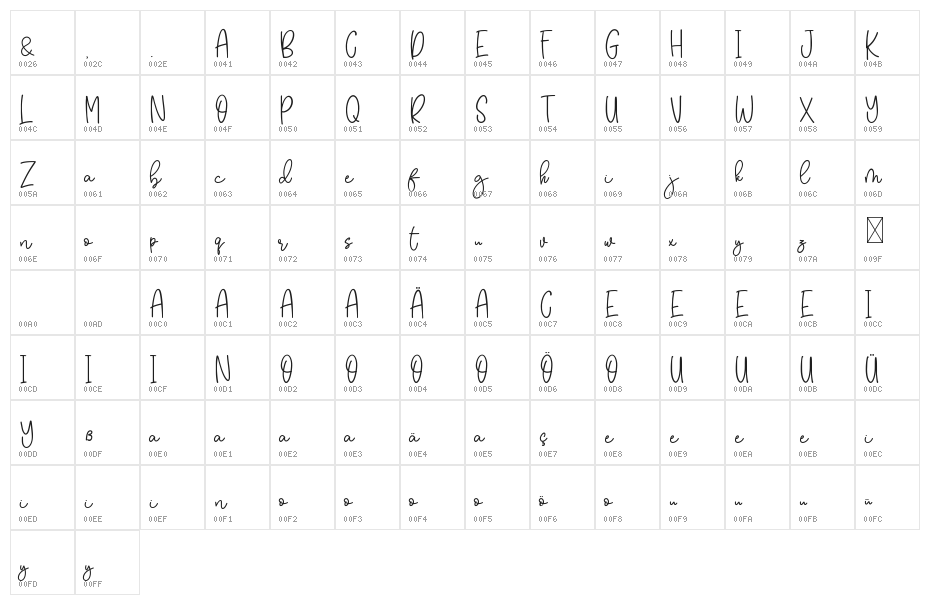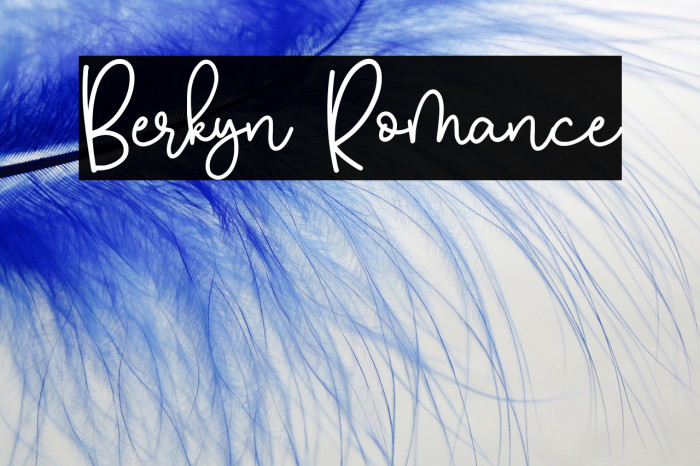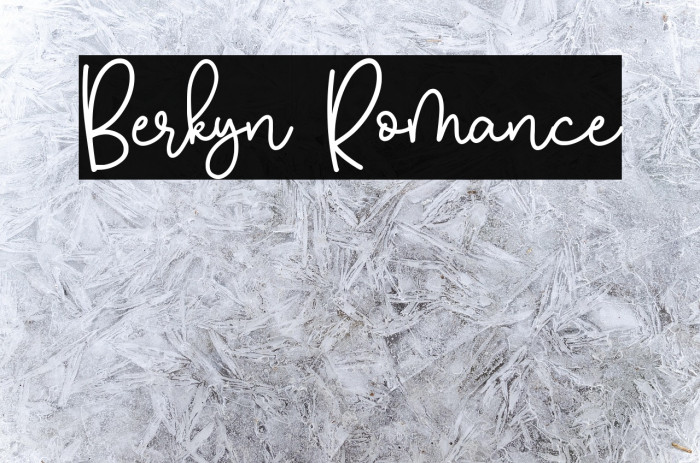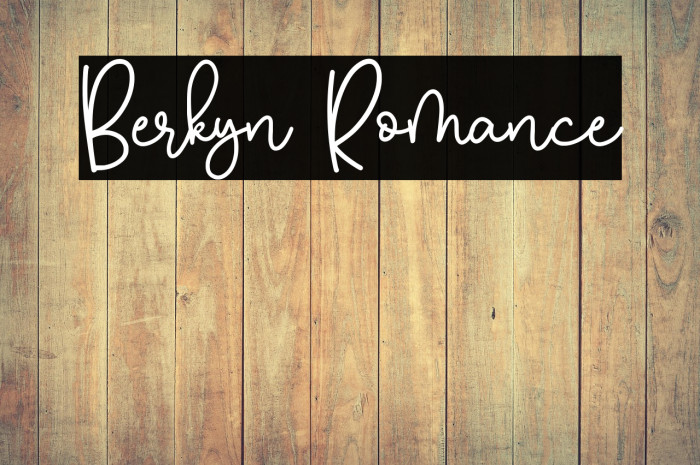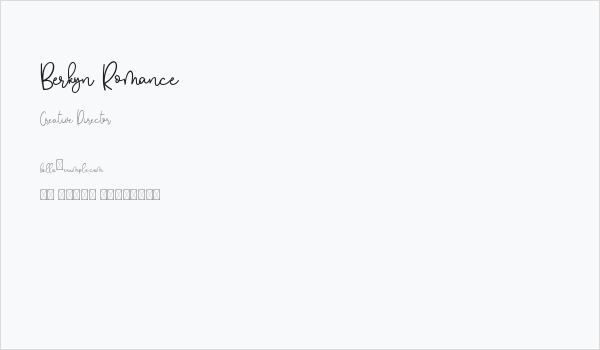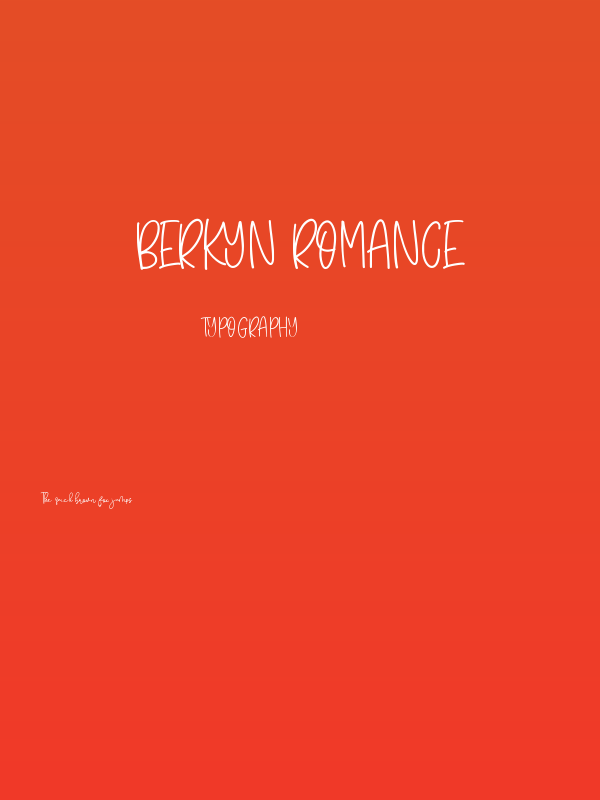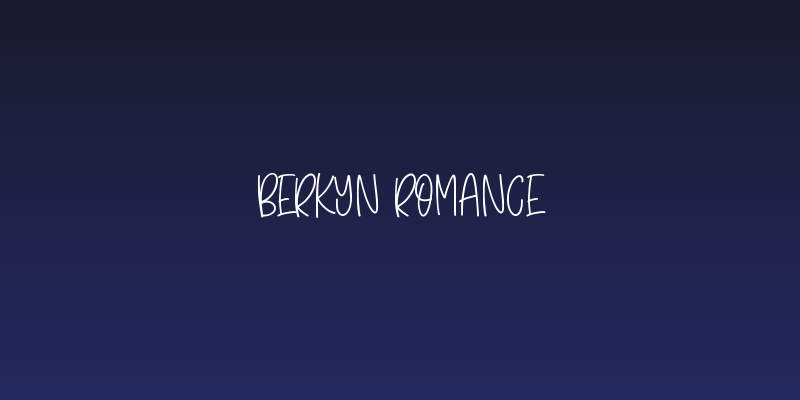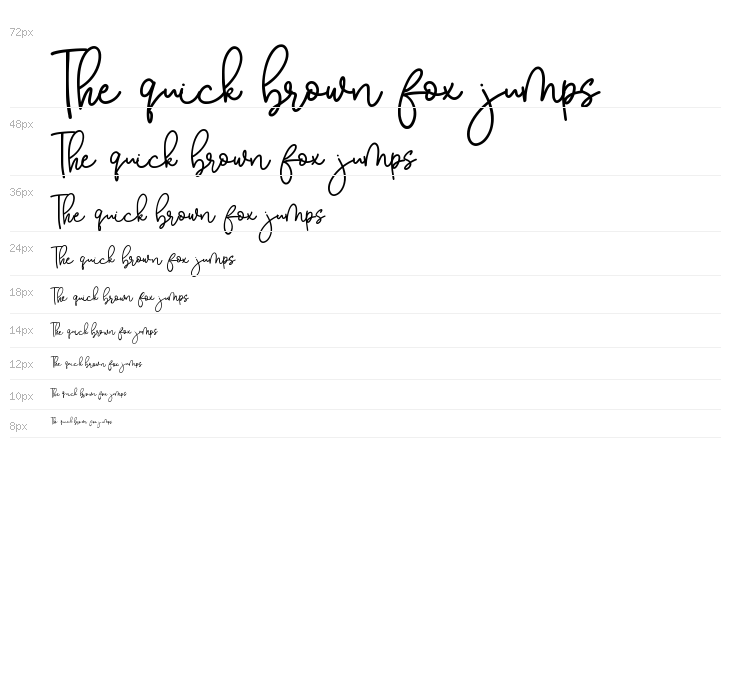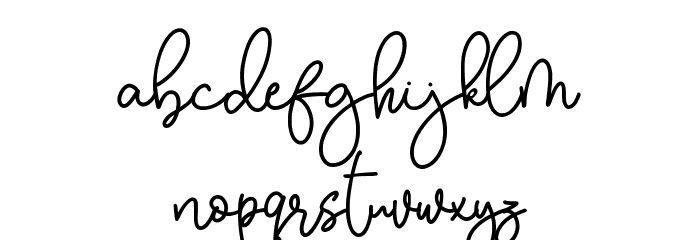
Berkyn Romance Font
Berkyn Romance Description
This font features a playful and whimsical handwritten style, characterized by its tall, narrow letters with a slight slant. The uppercase letters are bold and elongated, giving a sense of height and elegance, while the lowercase letters are more fluid and connected, resembling a casual script. The strokes are consistent in width, providing a clean and modern appearance. The font includes a variety of special characters, maintaining the same playful aesthetic. Its unique style makes it suitable for creative projects that require a personal touch.
| Proposed Projects | Ideal for greeting cards, invitations, playful branding, and social media graphics. |